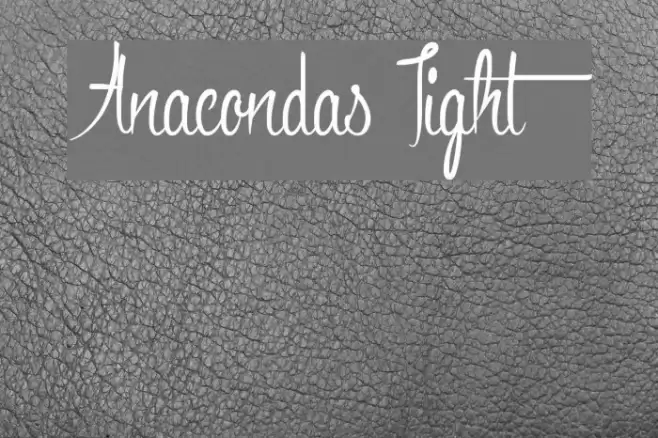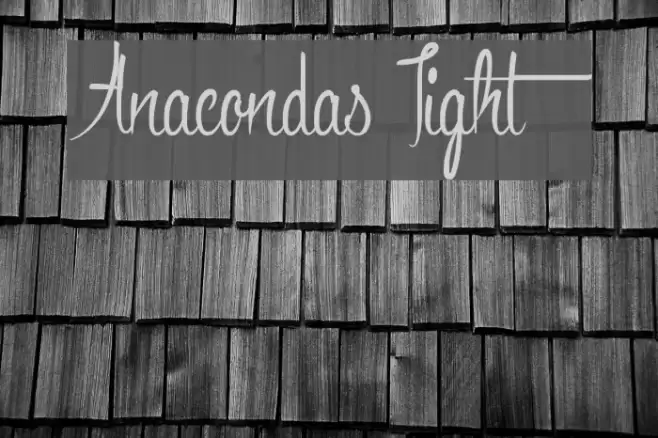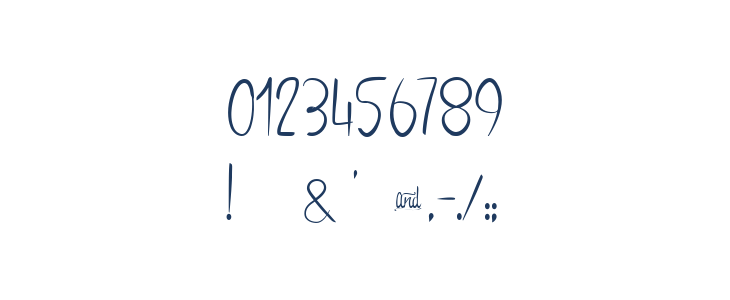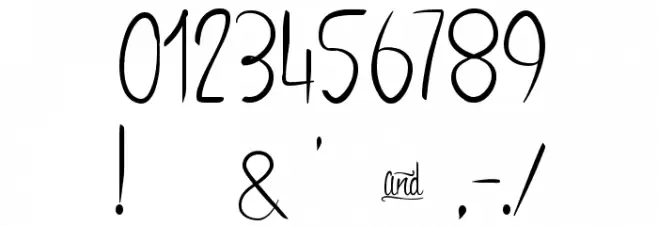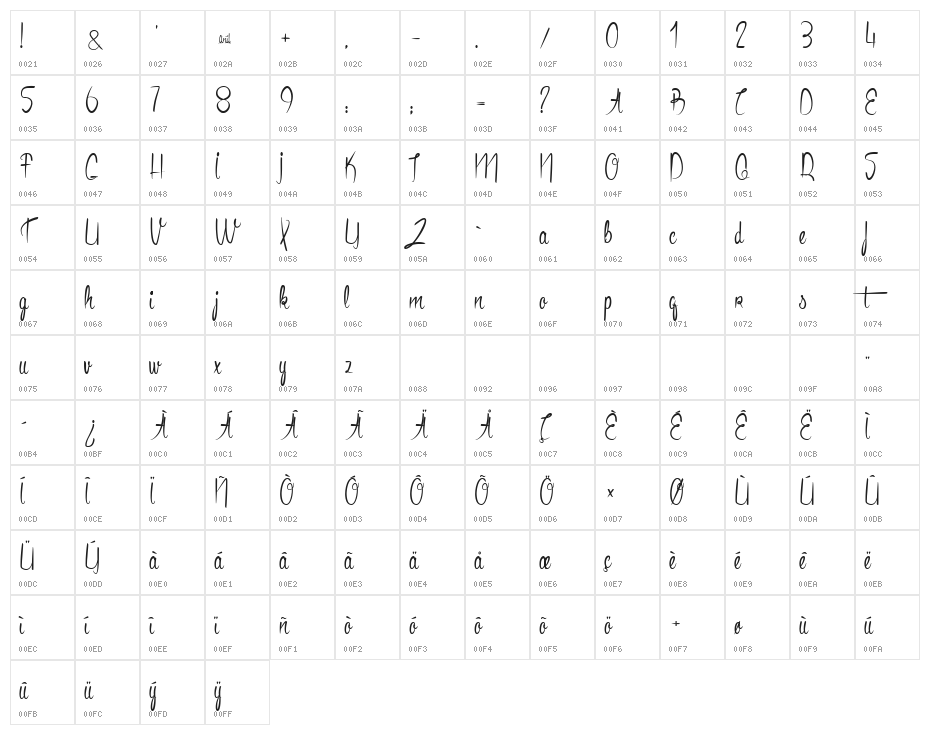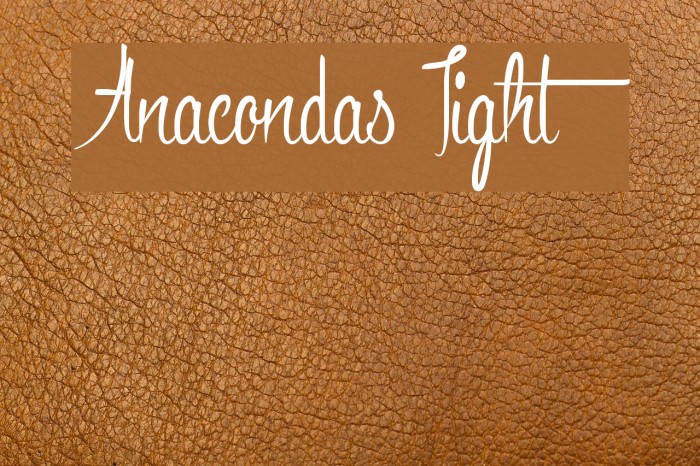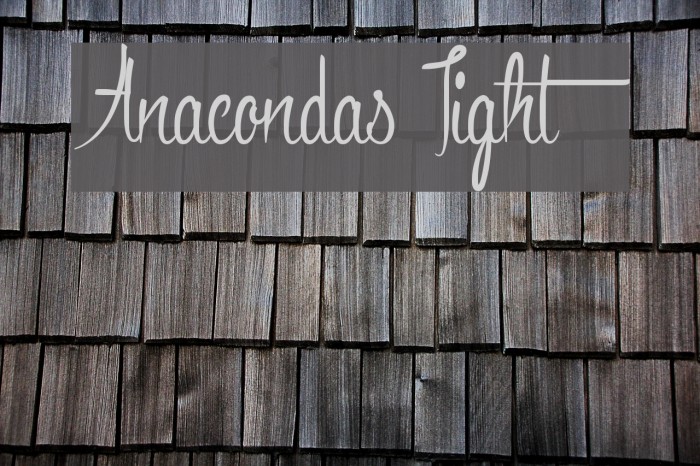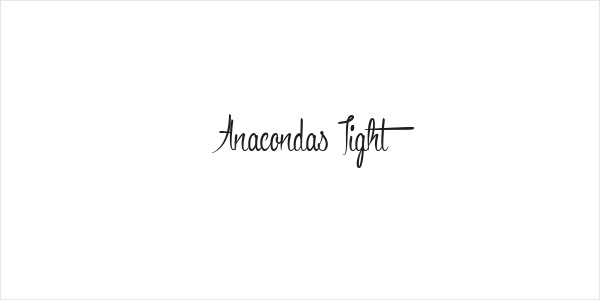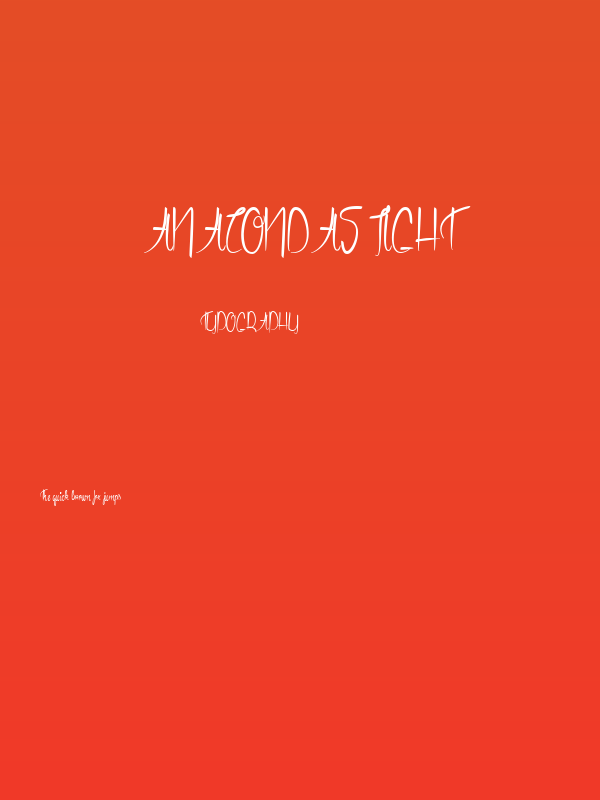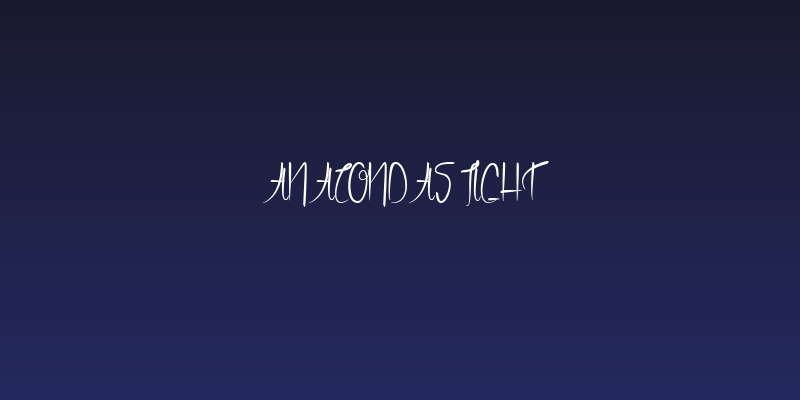
Anacondas Light Font
Anacondas Light Description
This font exhibits a unique and artistic flair, characterized by its elongated and flowing letterforms. The uppercase letters are particularly striking, with a mix of sharp angles and smooth curves that create a dynamic and engaging visual rhythm. The lowercase letters maintain this fluidity, offering a harmonious balance between readability and style. Numbers are crafted with the same attention to detail, ensuring consistency across all characters. Special characters are thoughtfully designed, adding to the font's versatility. The overall impression is one of elegance and creativity, making it suitable for projects that require a distinctive and memorable typeface.
An artistic and flowing font with elongated, dynamic letterforms from Uncategorized fonts.
- Proposed Projects: Ideal for creative projects such as branding, invitations, and artistic posters.
- Use Case: Logos, Headlines, Artistic projects